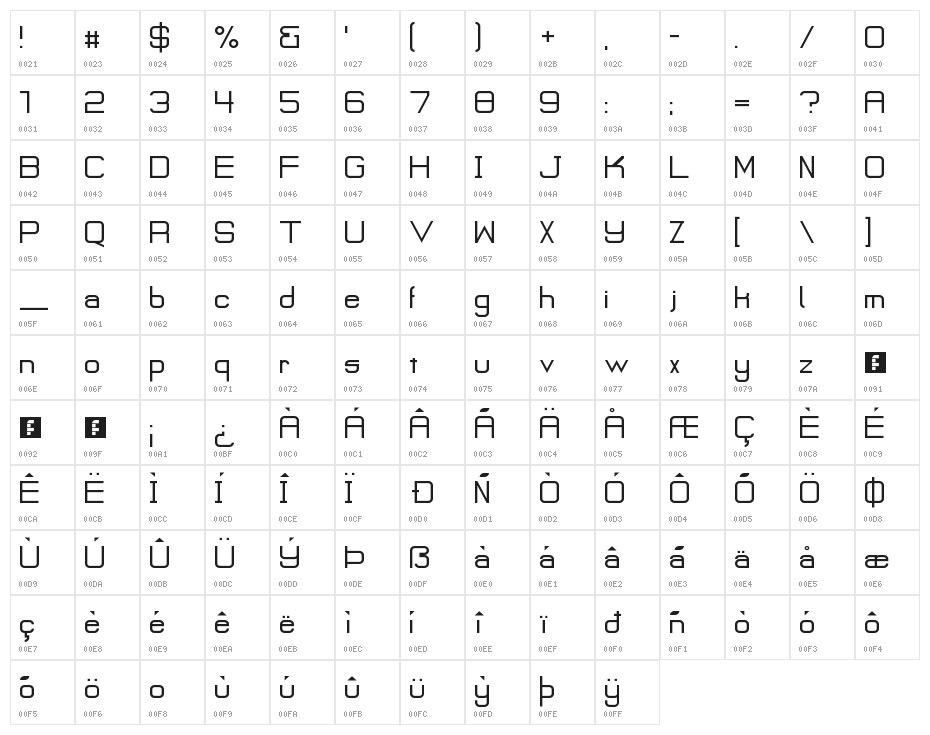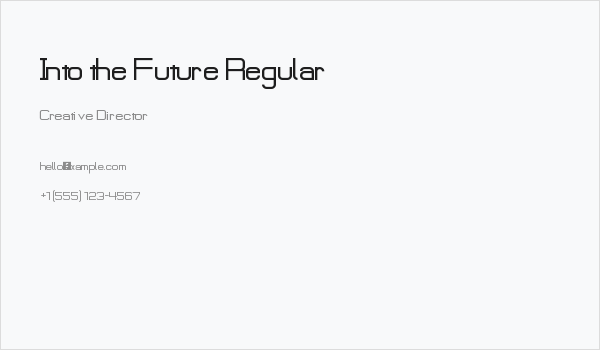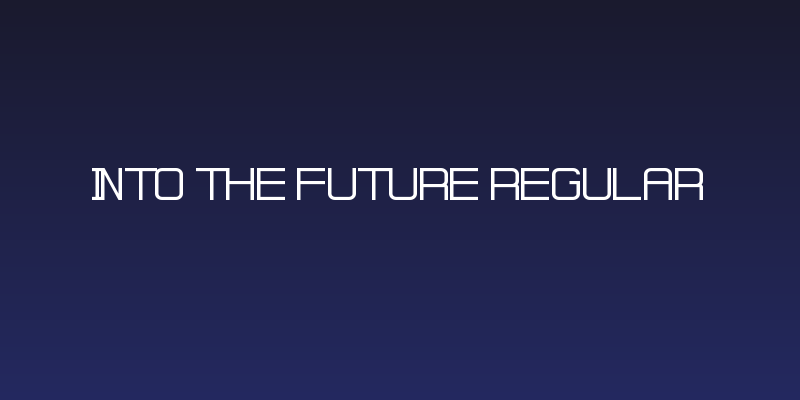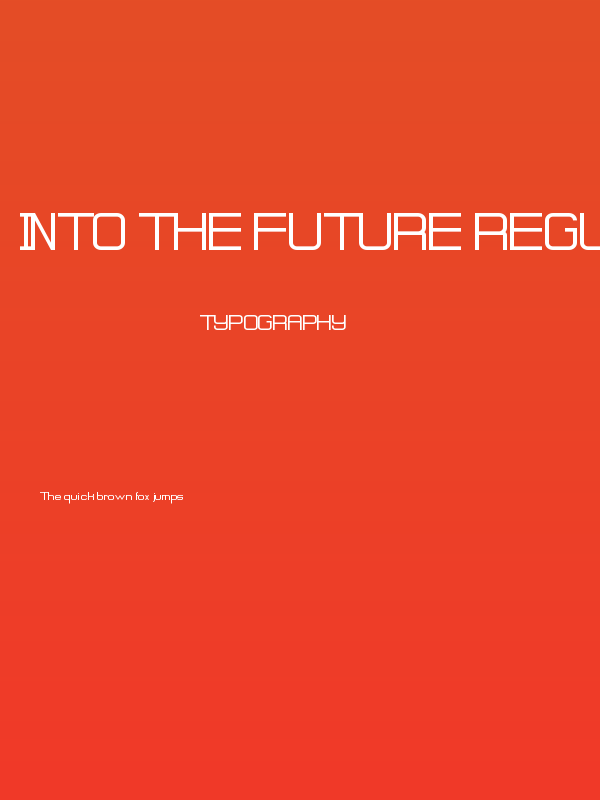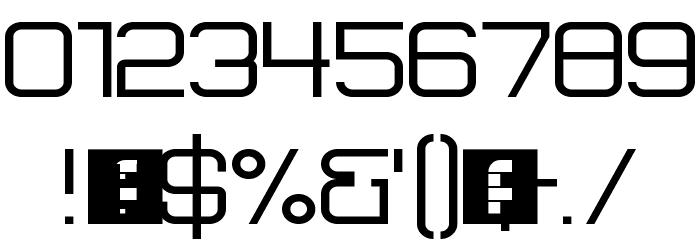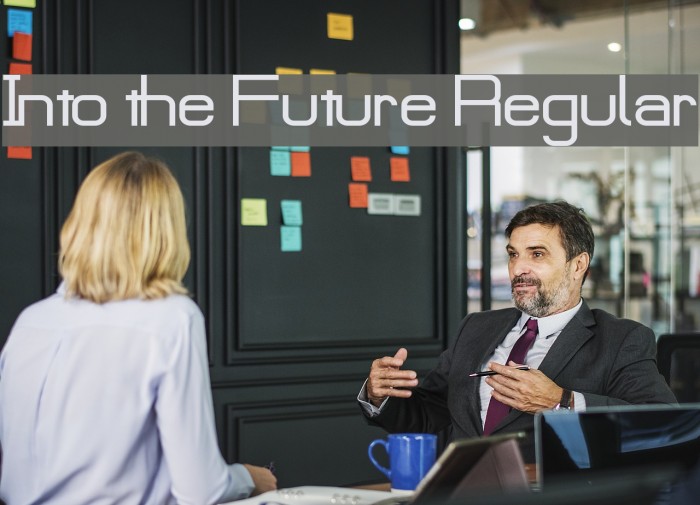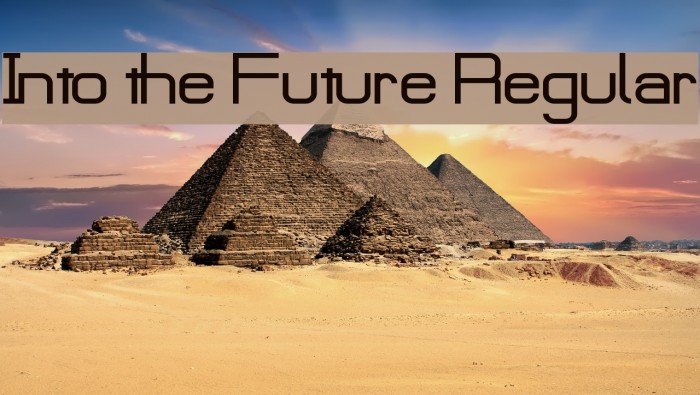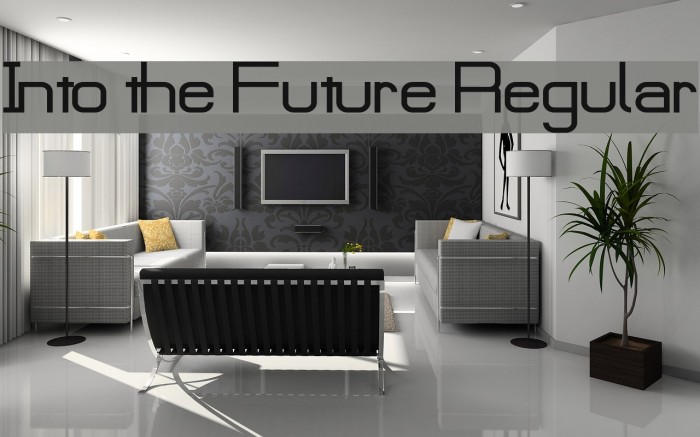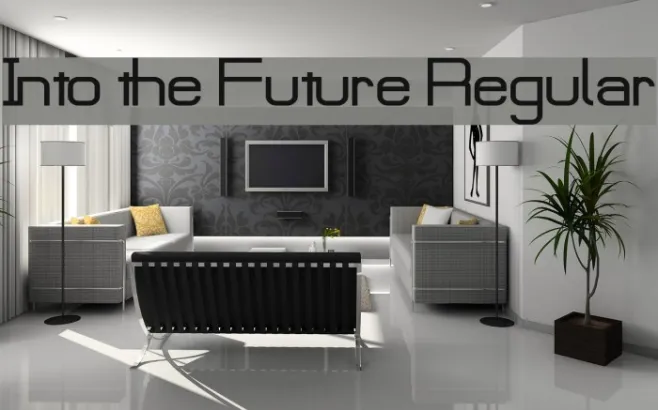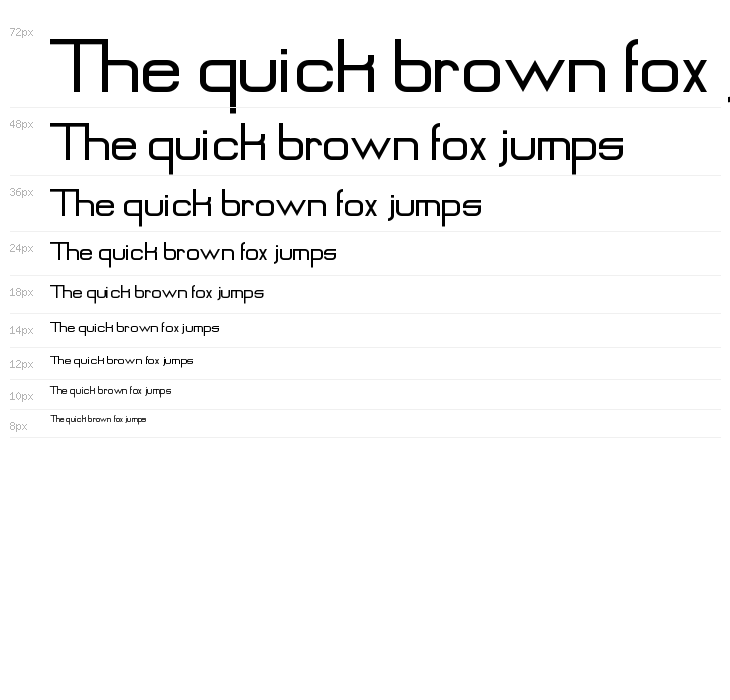
Into the Future Regular Font
Into the Future Regular Description
This font features a futuristic and geometric design, characterized by its clean lines and angular shapes. The uppercase letters are bold and structured, with a uniform height that creates a cohesive look. The lowercase letters maintain the geometric theme, offering a slightly more rounded appearance that complements the uppercase set. Numbers are designed with the same precision, ensuring readability and consistency. Special characters are distinct and maintain the overall modern aesthetic. This font is ideal for projects that require a contemporary and tech-forward feel, making it suitable for digital interfaces, branding, and advertising.